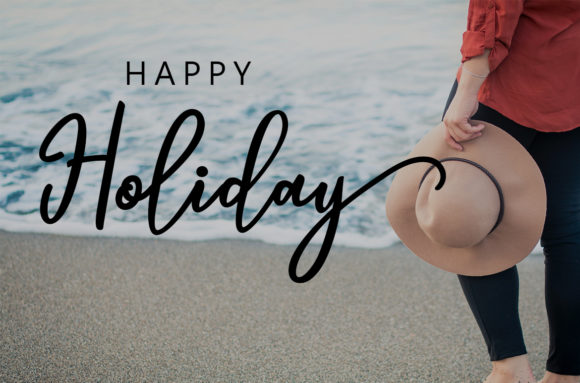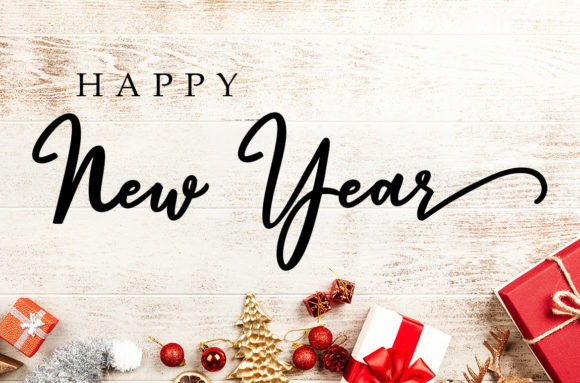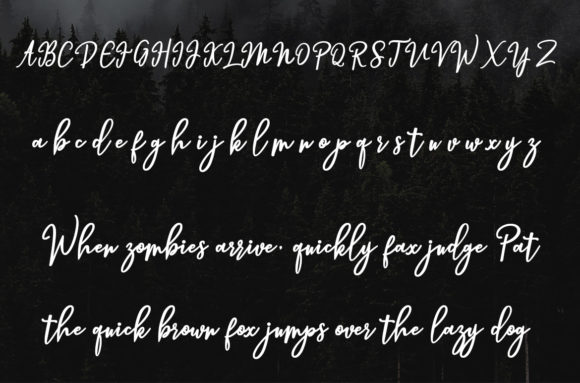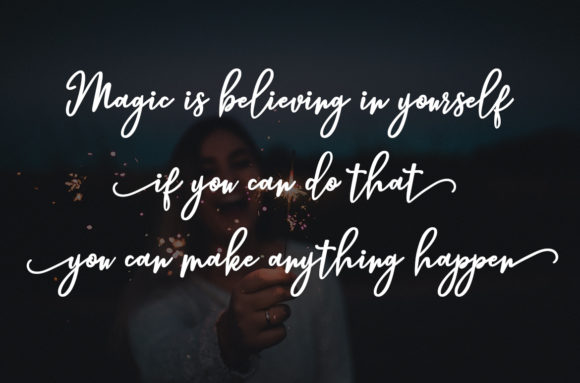
Hendryan Script Font
About Hendryan Script Font
The Hendryan is an amazing script font. It has a striking, yet elegant look which gives you the opportunity to use it for various designing needs.